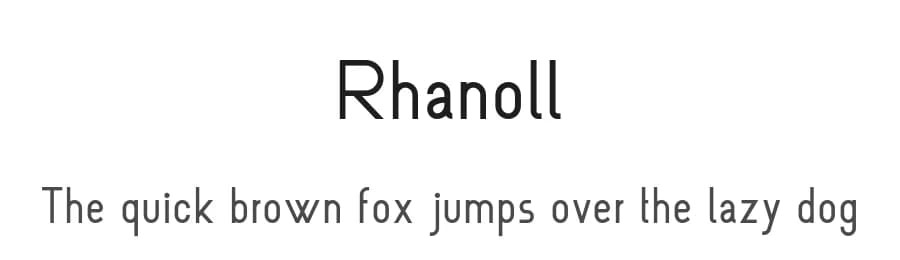
About Rhanoll Font
Rhanoll is a sans-serif modern font, designed for an illustration, it contains 114 glyphes. Free to use for personal or commercial work, I hope that you'll enjoy it.
Rhanoll Font